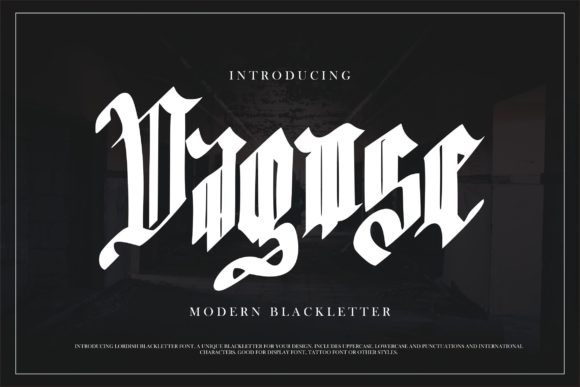
Enter the realm of Dagose, a captivating blackletter font that exudes an air of historical charm and timeless beauty. Its intricate strokes and elegant curves evoke a sense of authenticity, transporting you back to the era of handwritten manuscripts and ancient texts. With Dagose, your designs will radiate a touch of vintage elegance, whether it's a wedding invitation, a vintage-themed poster, or a captivating logo.
Dagose's versatility extends beyond its historical appeal. Its strong and distinctive characters lend a bold presence to headlines, posters, and packaging designs. The font's inherent legibility ensures that your message is conveyed clearly and effectively, even in small print. Unleash your creativity and experiment with different weights and styles to achieve a truly unique and memorable visual impact.
As a blackletter font, Dagose possesses a distinct charm that sets it apart from the ordinary. Its unique letterforms create a captivating visual texture that draws the eye and invites closer examination. Whether you're designing a book cover, a restaurant menu, or a product label, Dagose adds a touch of sophistication and intrigue that will leave a lasting impression.
Embrace the power of Dagose and elevate your designs to new heights. Its versatility, historical charm, and undeniable visual appeal make it the perfect choice for designers seeking authenticity, distinctiveness, and timeless elegance. Experience the Dagose difference today and let your creativity flourish!